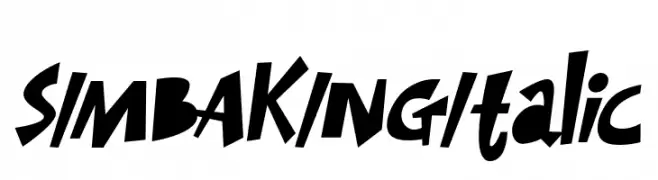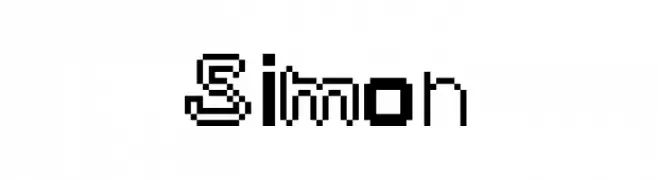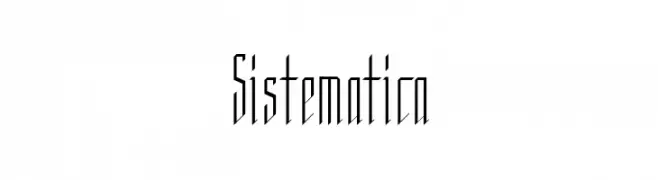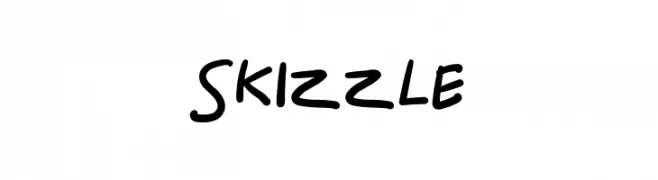
A bold, italicized font with a playful and dynamic style.
A bold, pixelated font with a retro digital aesthetic.
A playful, handwritten font with rounded, consistent strokes.
A decorative and whimsical font with elegant swirls and bold strokes.
A modern, angular font with elongated, narrow characters and high contrast strokes.
A Halloween-themed decorative font with playful, spooky elements.
A playful, casual handwritten font with smooth, flowing lines and slight irregularities.
A playful monoline script font with smooth, continuous strokes and a handwritten feel.
A playful, monoline handwritten font with fluid, connected letters.
A playful, hand-drawn serif font with a whimsical and artistic style.